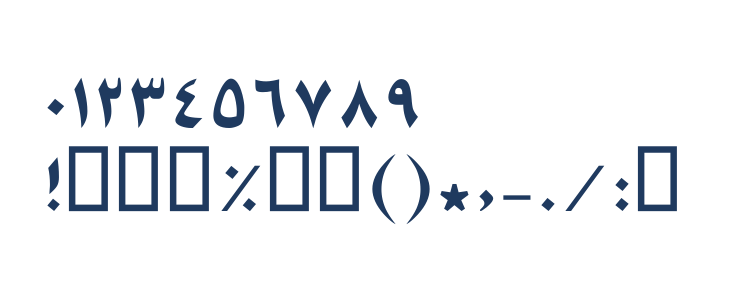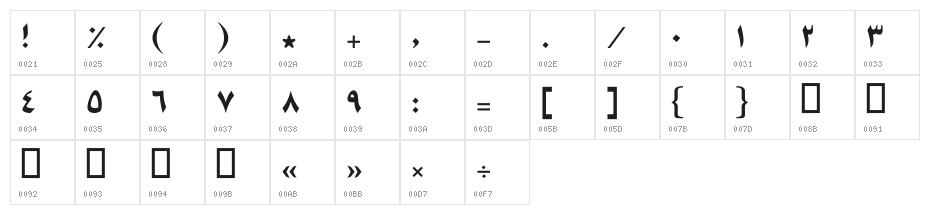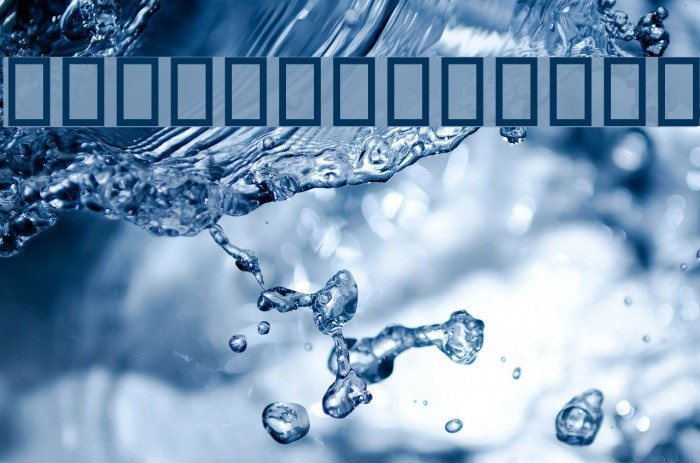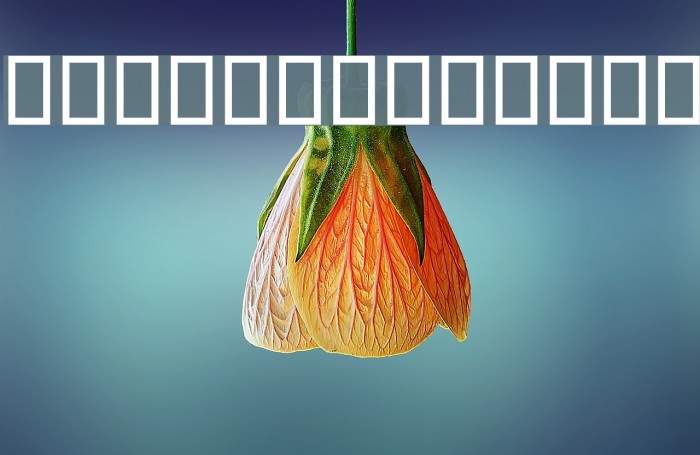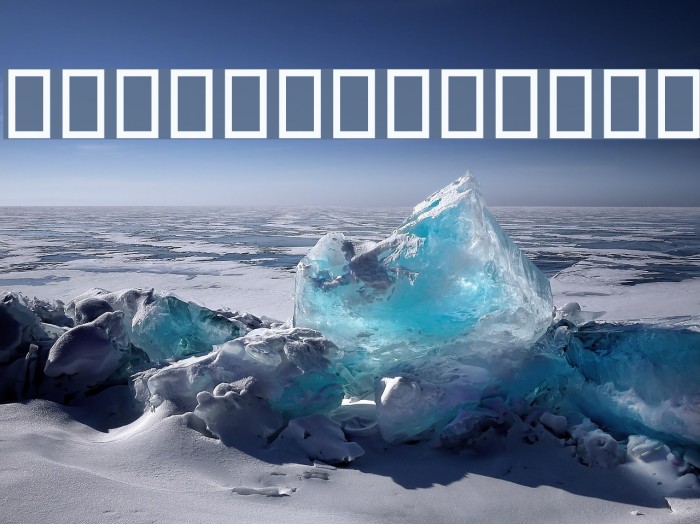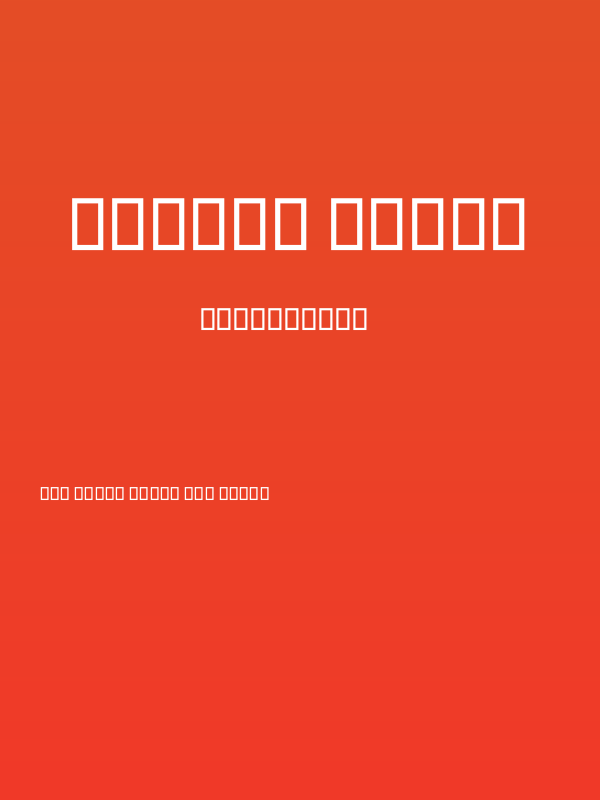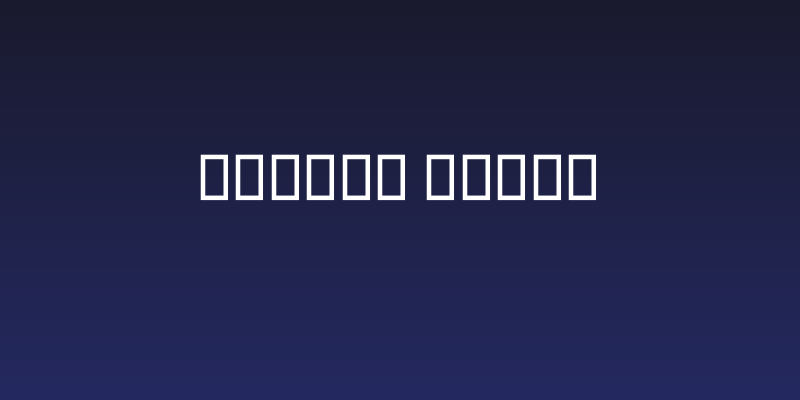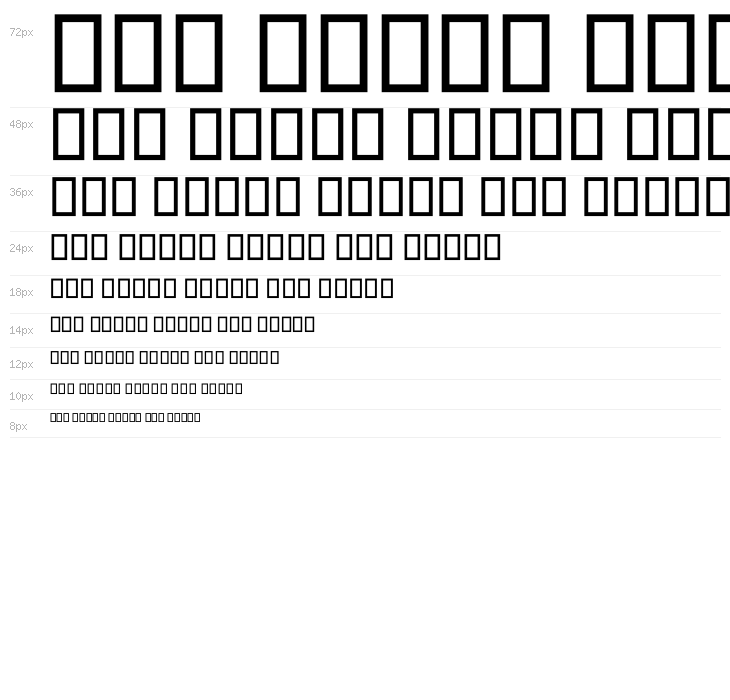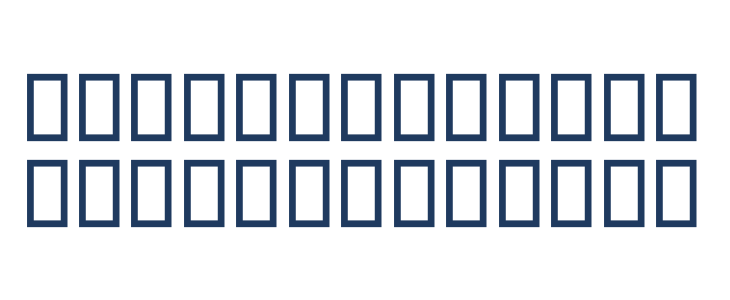
Faraah Black Font
Faraah Black Description
This font features a bold and striking design with a strong presence. The characters are crafted with thick strokes, giving them a robust and impactful appearance. The numerals are particularly distinctive, with unique curves and angles that add a touch of flair. The special characters maintain the boldness, ensuring consistency throughout the set. This font is designed to stand out, making it ideal for attention-grabbing headlines or logos. Its bold nature suggests a sense of confidence and authority, perfect for projects that require a commanding visual element.
| Proposed Projects | Ideal for headlines, logos, posters, and any design requiring a strong visual impact. |